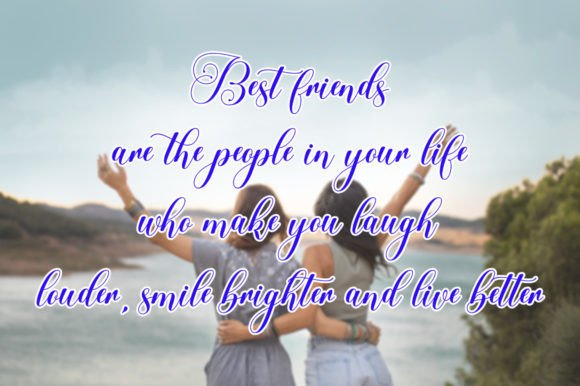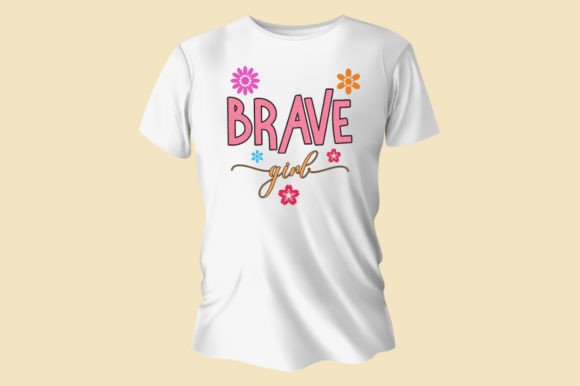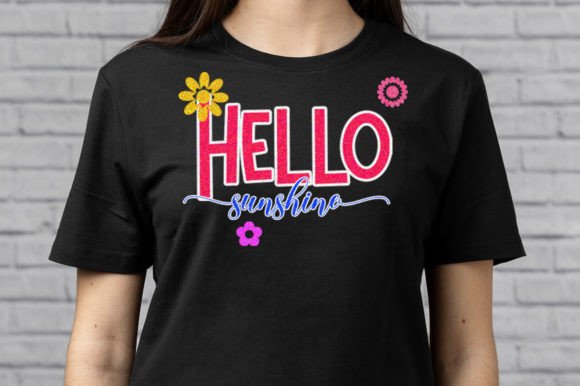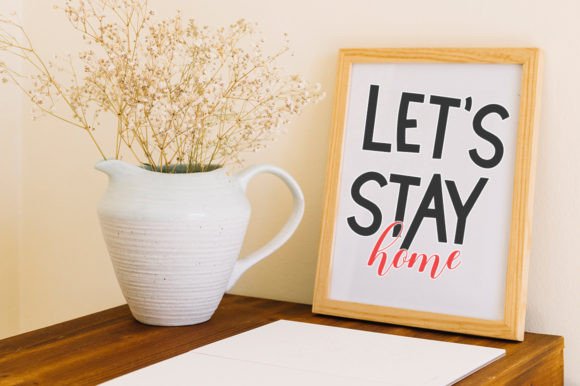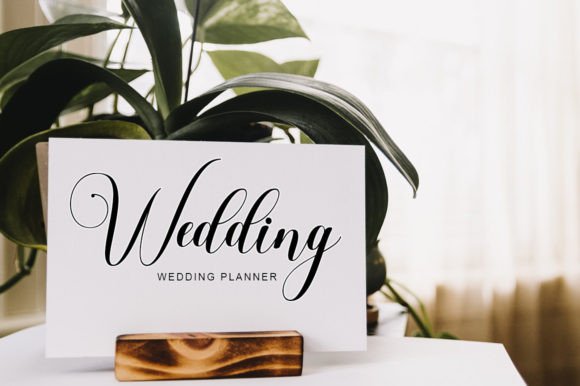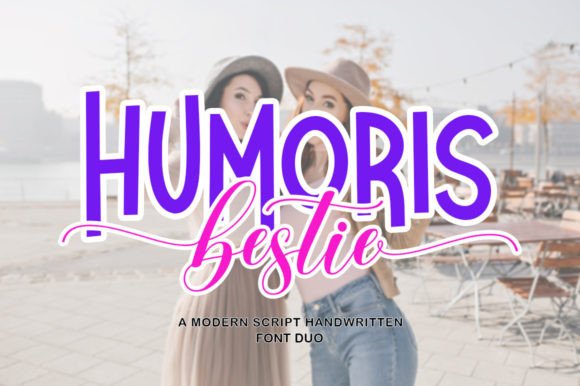
Introducing Bestie Humoris Font: Elevate Your Designs with a Touch of Romance
Are you a designer or crafter looking for a font that can add a romantic touch to your creations? Look no further than Bestie Humoris Font, a stylish and subtle font duo that’s perfect for a wide range of applications. In this article, we’ll explore the features and benefits of Bestie Humoris, and show you how it can take your designs to the next level.
What is Bestie Humoris Font?
Bestie Humoris is a beautifully crafted font duo that combines the elegance of a sans serif font with the charm of a script font. This versatile font is suitable for a wide spectrum of applications, from greeting cards to headlines, and is sure to add a romantic touch to your creations. Whether you’re designing a wedding invitation, a Valentine’s Day card, or simply want to add some personality to your blog or social media posts, Bestie Humoris is the perfect choice.
Key Features of Bestie Humoris Font
So, what makes Bestie Humoris Font so special? Here are just a few of its key features:
- Sans Serif and Script Font Duo: Bestie Humoris combines two complementary fonts that can be used together or separately to create a unique look.
- Romantic and Elegant: Bestie Humoris has a romantic and elegant feel that’s perfect for designs that require a touch of sophistication.
- Highly Versatile: This font duo is suitable for a wide range of applications, from digital designs to print materials.
Benefits of Using Bestie Humoris Font
So, why should you choose Bestie Humoris Font for your next design project? Here are just a few benefits of using this amazing font:
- Add a Romantic Touch: Bestie Humoris is designed to add a romantic touch to your creations, making it perfect for designs that require a touch of elegance and sophistication.
- Save Time and Effort: Bestie Humoris is a highly versatile font duo that can be used for a wide range of applications, saving you time and effort in the design process.
- Stand Out from the Crowd: With its unique and elegant design, Bestie Humoris is sure to make your designs stand out from the crowd.
How to Use Bestie Humoris Font
Using Bestie Humoris Font is easy! Here are a few tips to get you started:
- Pair the Sans Serif and Script Fonts: Combine the sans serif and script fonts to create a beautiful and elegant design.
- Use for Digital and Print Materials: Bestie Humoris is suitable for both digital and print materials, making it a versatile font duo for all your design needs.